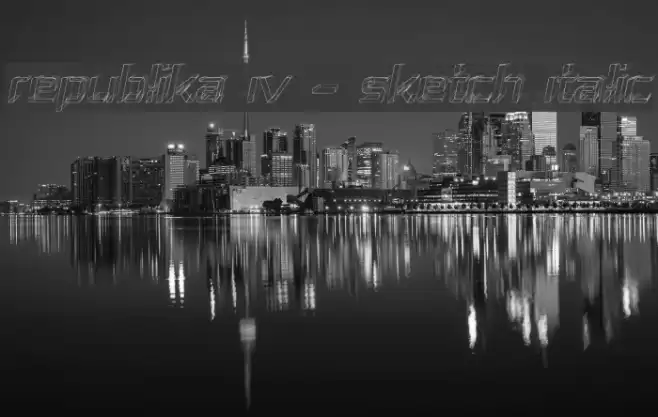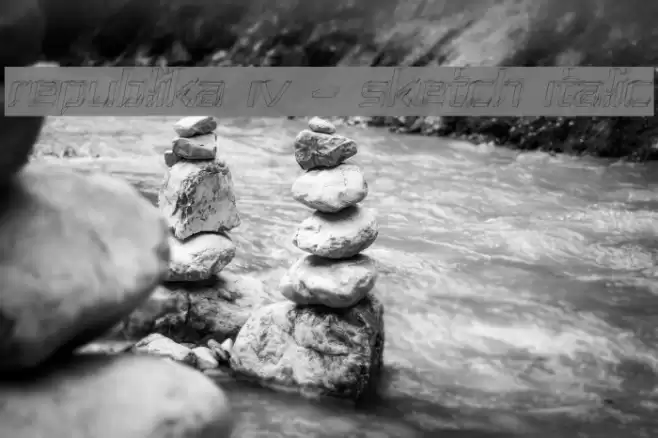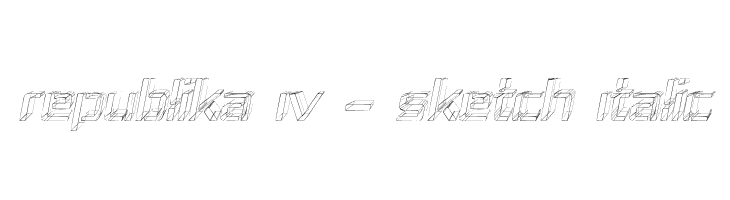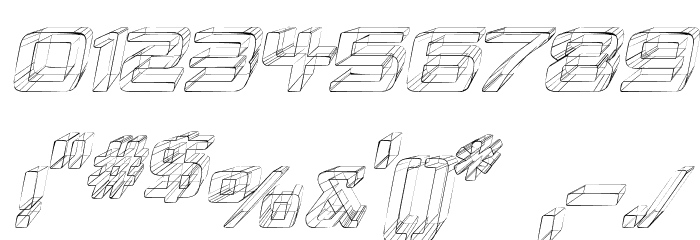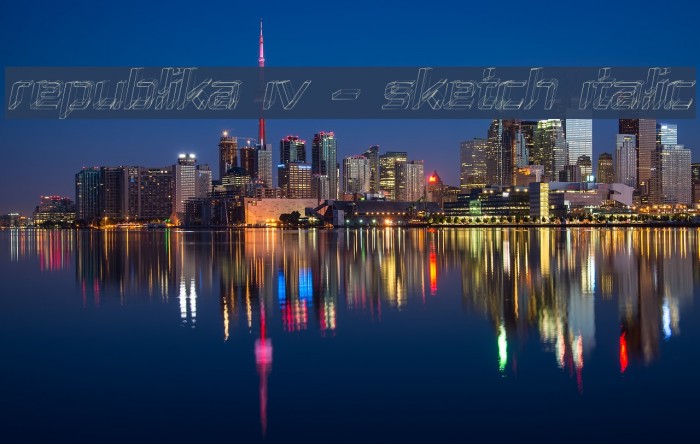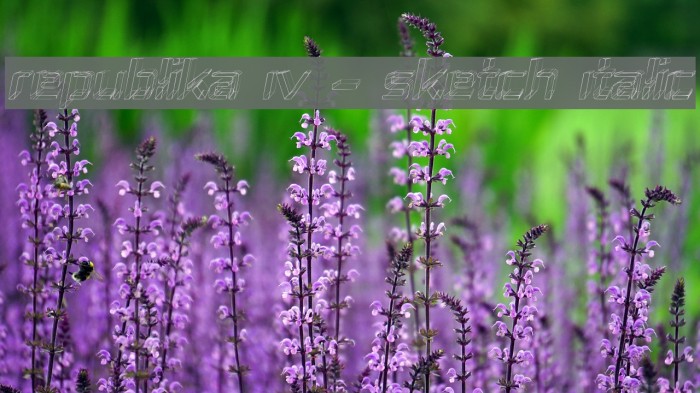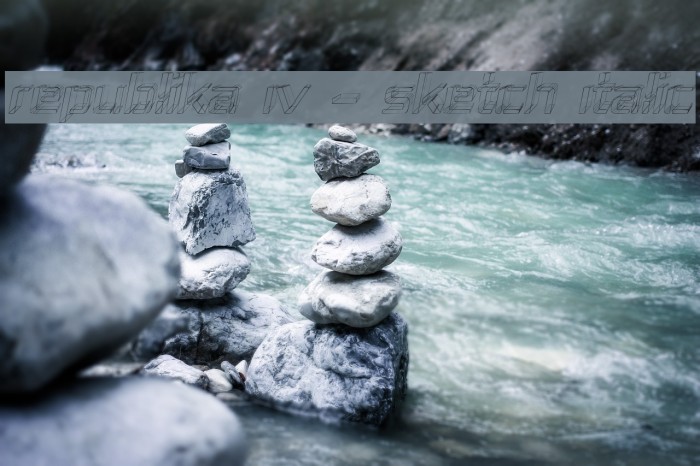
Republika IV - Sketch Italic Font
Republika IV - Sketch Italic Description
This font features a unique sketch-like appearance with a three-dimensional effect, giving it a dynamic and artistic feel. The characters are italicized, adding a sense of motion and fluidity. The lines are composed of multiple strokes, creating a hand-drawn look that is both modern and playful. The font maintains a consistent structure across uppercase, lowercase, numbers, and special characters, ensuring readability while retaining its distinctive style. The overall design is suitable for creative projects that require a bold statement.
A sketch-style, 3D italic font with a dynamic and artistic appearance from Uncategorized fonts.
- Proposed Projects: Ideal for creative branding, poster design, artistic projects, and modern digital artwork.